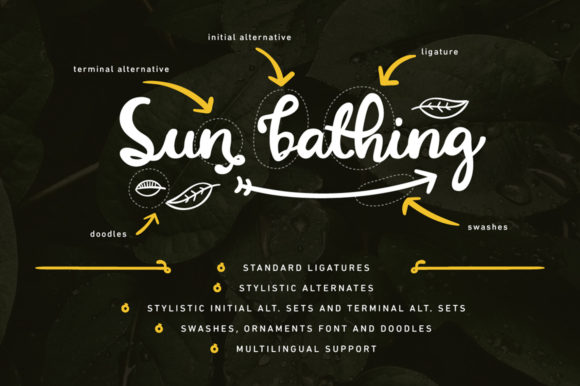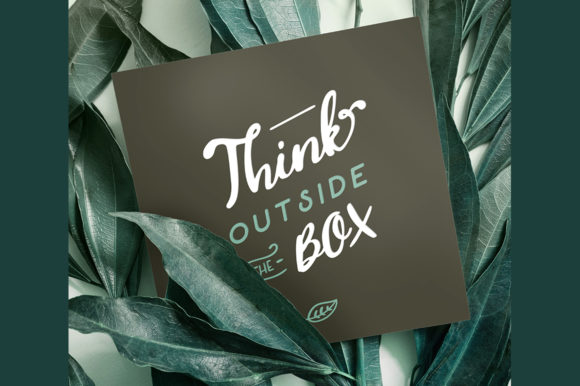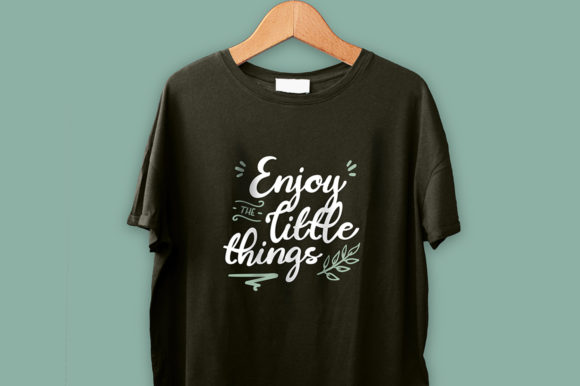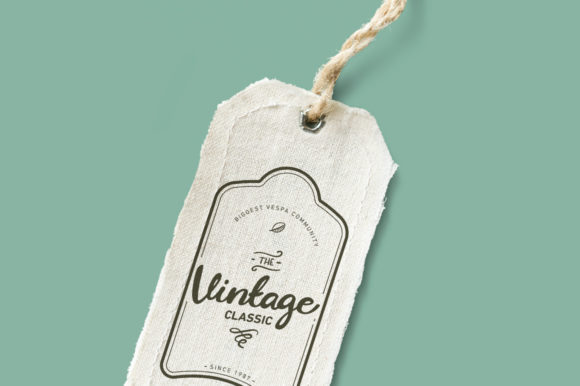
Introduction to Mimitee Font
Have you ever stared at a blank canvas, struggling to find the perfect font to bring your creative project to life? The blank page stares back, taunting you to make a decision. But what if I told you there’s a secret to unlocking the perfect font for your next design project?
Enter the Mimitee Font, a delightful and authentic handwritten font that’s sure to capture the hearts of designers and design enthusiasts alike. This high-quality font is a game-changer for any creative project, offering a unique and charming touch that sets your work apart from the rest.
Key Features of Mimitee Font
- High-quality design: Mimitee Font is a carefully crafted typeface perfect for creative projects requiring a unique and eye-catching aesthetic.
- Unique characteristics: The font’s unique characteristics, including its bold lines and playful texture, make it an excellent choice for creative projects requiring a distinctive look.
Honest Review: Mimitee Font
I recently had the chance to work with the Mimitee Font, and I’m excited to share my honest review. As a designer, I’m always on the lookout for high-quality design resources that can elevate my creative projects.
One of the things that really stood out to me about the Mimitee Font was its unique aesthetic. It’s perfect for adding a touch of whimsy and playfulness to your designs. The font is available for free download, making it a fantastic resource for designers who are on a budget.
Here are some of the things that I think work well with the Mimitee Font:
- ✨ Unique and playful aesthetic
- ✨ Transparent background makes it easy to use
- ✨ Great for creative projects, such as illustrations and graphics
- ⚠️ Limited font variations (only a few styles are available)
- ⚠️ May not be suitable for formal or professional projects
Overall, I think the Mimitee Font is a fantastic addition to any designer’s toolkit. While it may have some limitations, its unique aesthetic and high-quality design make it a great choice for creative projects. Just be sure to use it judiciously and in context.
The Mimitee Font is commonly used in social media graphics, flyers, posters, and business cards. It’s a great design resource for anyone looking to add a touch of elegance and sophistication to their designs.